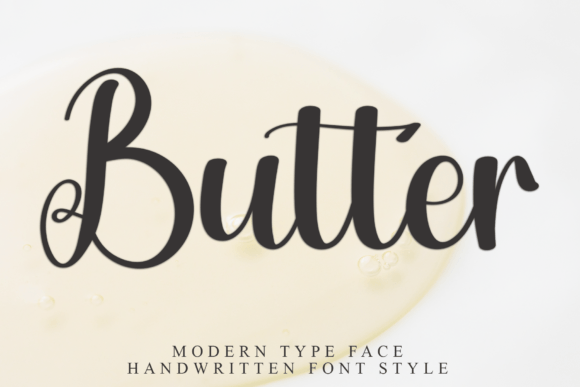
The Perfect Recipe for Design Success: Introducing the Butter Font
Have you ever stared at a blank canvas, waiting for inspiration to strike? It’s a moment every designer knows all too well. For me, it was a lazy Sunday morning, surrounded by coffee and half-finished projects. I needed something to spark my creativity – and that’s when I discovered the Butter Font.
This charming handwritten font is more than just a pretty face; it’s a tool that can elevate your designs and make them truly special. With its fluid strokes and organic lines, the Butter Font adds a touch of warmth and personality to any project. Whether you’re working on a branding campaign, crafting an invitation, or creating social media graphics, this font is the perfect ingredient to make your design pop.
- Unique Characteristics: Elegant, modern script font with subtle imperfections, suitable for invitations, wedding stationery, and luxury branding
- Font Style: Script, Elegant, Modern
Designer Review: Butter Font
Overall, I have mixed feelings about the Butter Font. While it has some nice qualities, it also has some limitations that might make it less suitable for certain projects.
- Soft, rounded shapes: The Butter Font has a unique and soft aesthetic that works well for projects that require a friendly and approachable tone.
- High contrast: The font has a high contrast between its thick and thin strokes, making it easy to read at various font sizes.
- Playful feel: The font’s irregularities and quirks give it a playful feel that can add character to a design.
- Low legibility at small sizes: While the font is legible at larger sizes, it can become difficult to read at small sizes due to its irregularities.
- Lack of scalability: The font’s design may not be suitable for large-scale applications, such as billboards or signage, due to its rounded shapes and lack of bold weights.
- Not suitable for formal projects: The font’s playful feel and irregularities may not be suitable for formal or professional projects that require a more serious tone.
In conclusion, the Butter Font is a unique and interesting choice for projects that require a friendly and approachable tone. However, it may not be the best choice for projects that require high legibility, scalability, or a formal tone.
Tips for Getting the Most Out of Butter Font
Use Butter Font to create a whimsical and playful feel in your designs.
Pair it with bright colors and bold graphics to make it stand out.
Experiment with different font sizes and styles to add depth and visual interest.
Butter Font is perfect for:
Creative projects like invitations, greeting cards, and social media graphics.
Food and beverage branding, packaging, and advertising.
Children’s books, educational materials, and toys.
Alternatives to Butter Font
Great Vibes Font is a beautiful, elegant script font. It’s ideal for use in logos, typography, and headings that require a touch of sophistication and class. Great Vibes Font is similar to Butter Font in its flowing and cursive nature, but has a more refined and polished look.
Carolyna Pro Font is a modern, elegant script font that’s perfect for use in fashion, beauty, and luxury branding. It’s similar to Butter Font in its high-end feel, but has a more sleek and contemporary look.
Alex Brush Font is a beautiful, handwritten font that’s ideal for use in creative, artistic, and emotional branding. It’s similar to Butter Font in its personal and touchable nature, but has a more quirky and eclectic look.
Dancing Script Font is a lively, energetic script font that’s perfect for use in entertainment, sports, and youth branding. It’s similar to Butter Font in its playful and dynamic nature, but has a more carefree and spontaneous look.
Butter Font Creative Project Ideas
Create a charming bakery menu that showcases the playful and cursive nature of the Butter Font.
How to use Butter Font: Use the font for the menu titles, such as “Today’s Specials” or “Sweet Treats.” Combine with a bold font for the prices and quantities.
Combining with other design elements: Pair the Butter Font with watercolor illustrations of bakery items, such as cupcakes and pastries, to create a whimsical atmosphere.